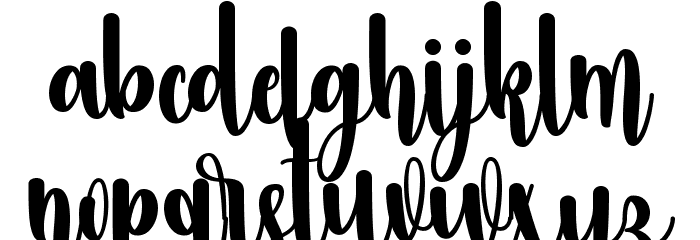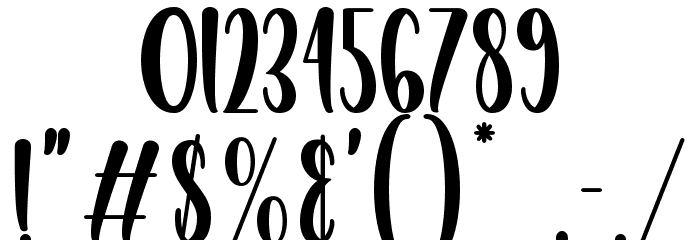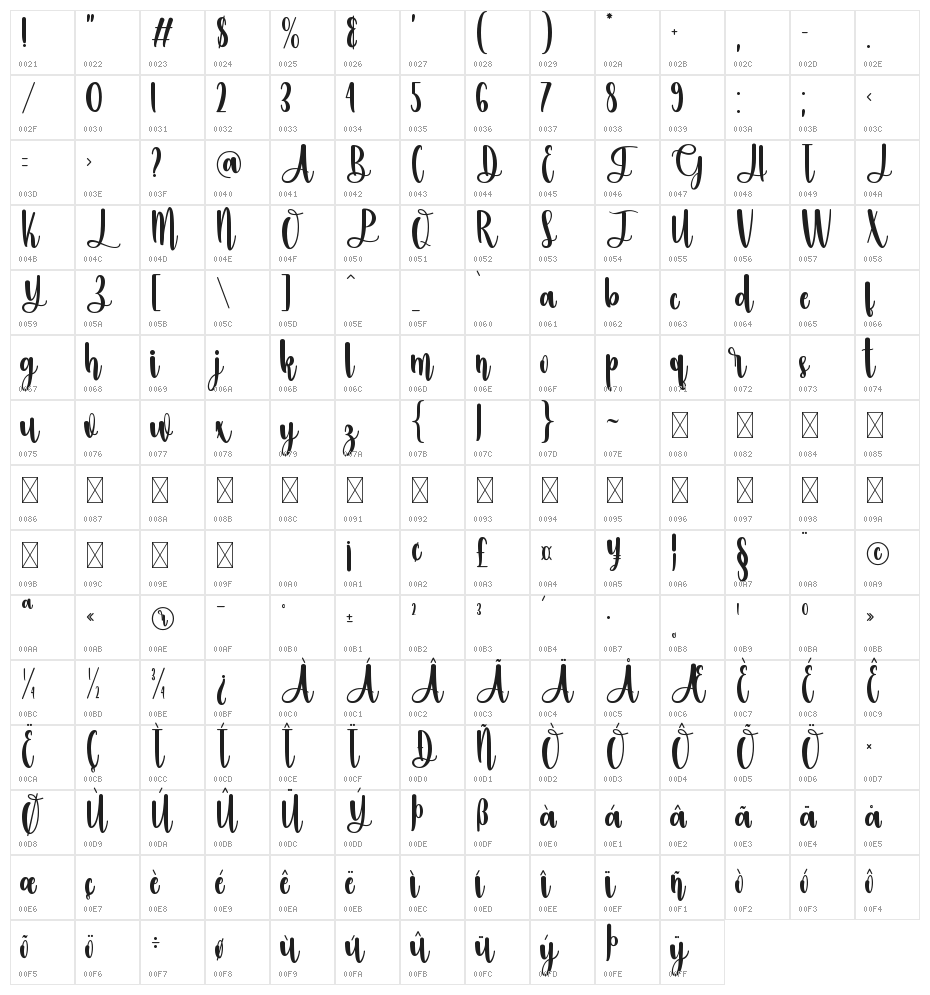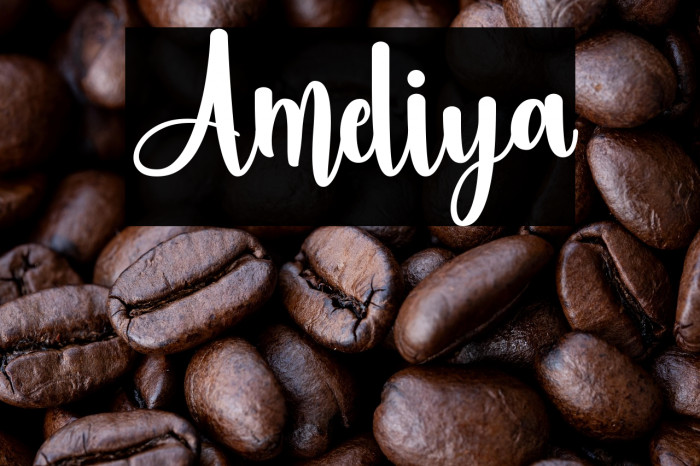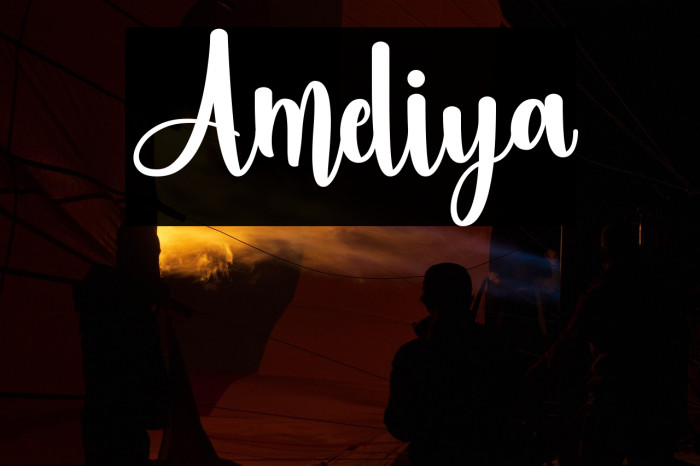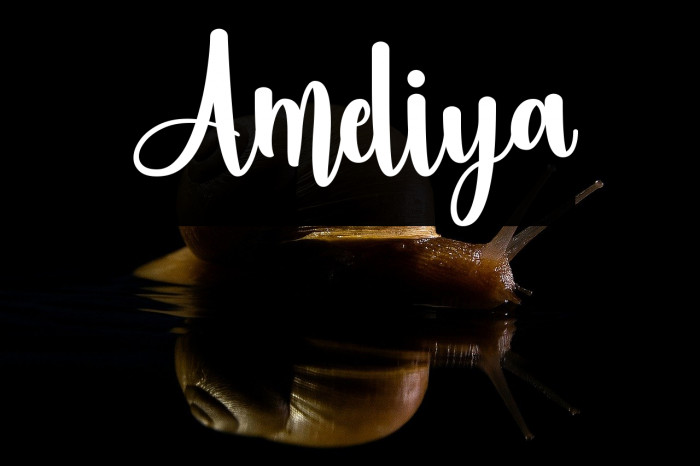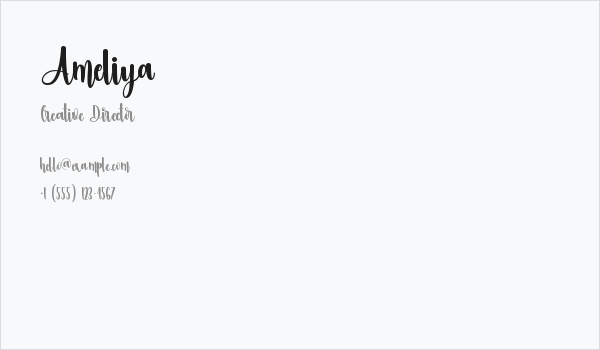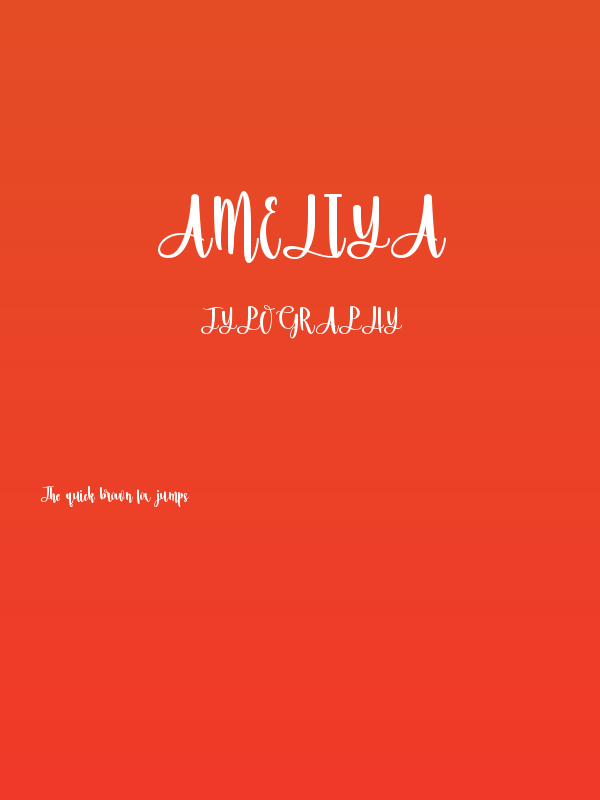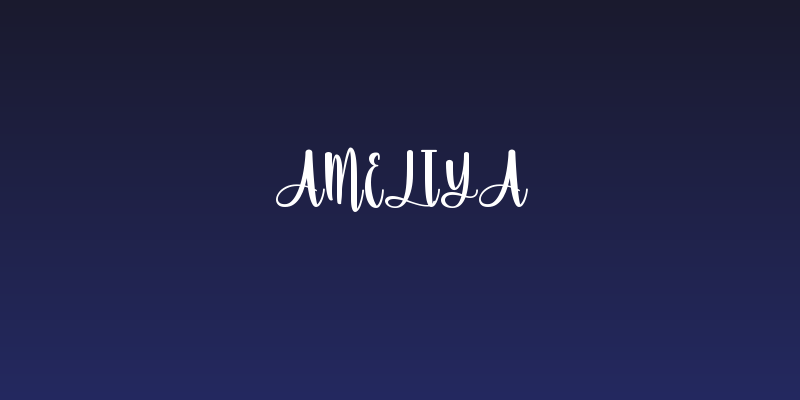
Ameliya Font
This font features a playful and elegant script style with a handwritten appearance. The uppercase letters are characterized by their flowing, interconnected strokes, giving a sense of movement and fluidity. The lowercase letters maintain a consistent style, with rounded forms and smooth curves that enhance readability. The numerals are bold and slightly whimsical, matching the overall aesthetic of the alphabet. Special characters are creatively designed, adding a unique flair to the font. The overall impression is one of charm and sophistication, suitable for a variety of creative projects.
A playful and elegant script font with a handwritten style.
- Proposed Projects: Ideal for wedding invitations, greeting cards, branding, and social media graphics.
- Category: Script
- Use Case: Logos, Headlines, Invitations